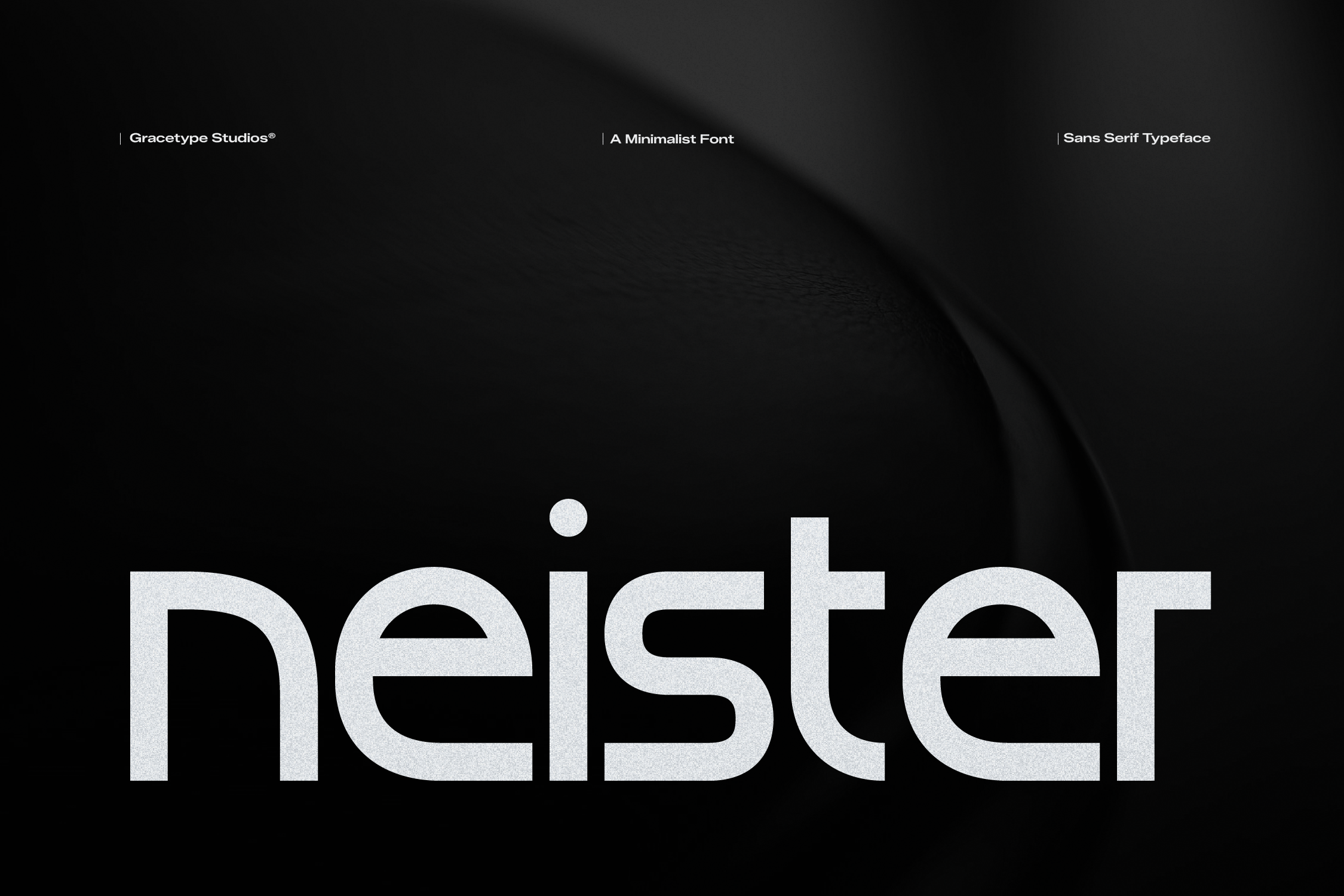
Neister | Sans Serif Typeface
Neister | Sans Serif Typeface, from Gracetypestudio, suitable for any projects such as: logos, branding projects, homeware designs, product packaging, mugs, quotes, posters, shopping bags, t-shirts, book covers, name card, invitation cards, greeting cards, label, photography, watermark, special events, and all your other lovely projects that need a Sans taste.